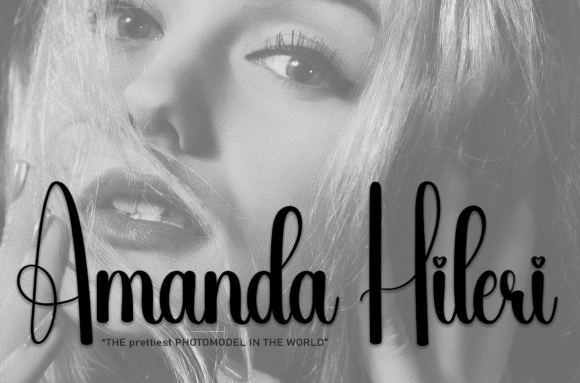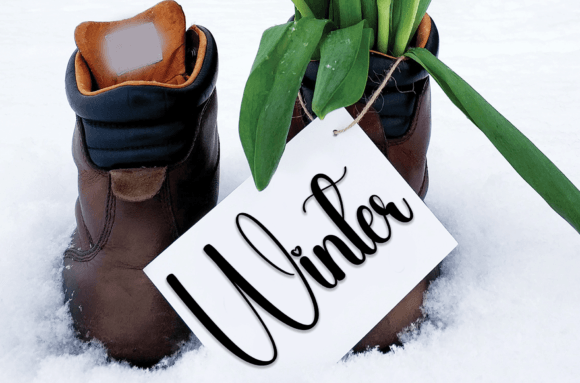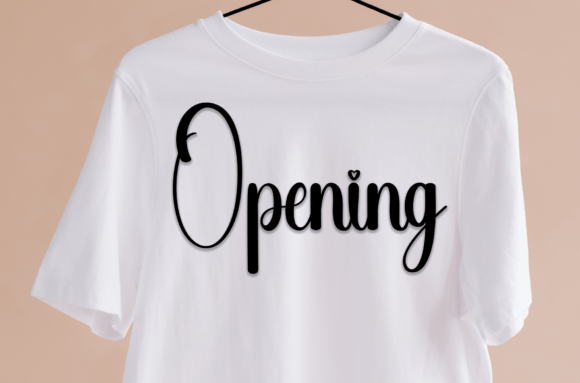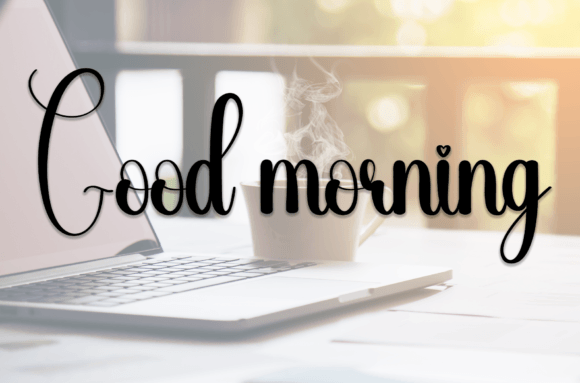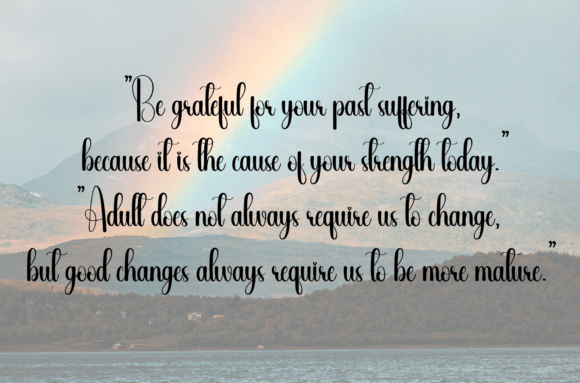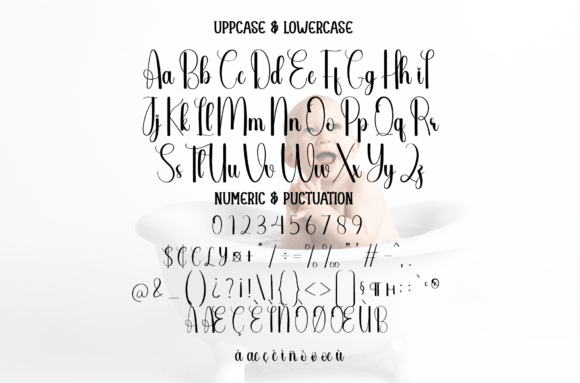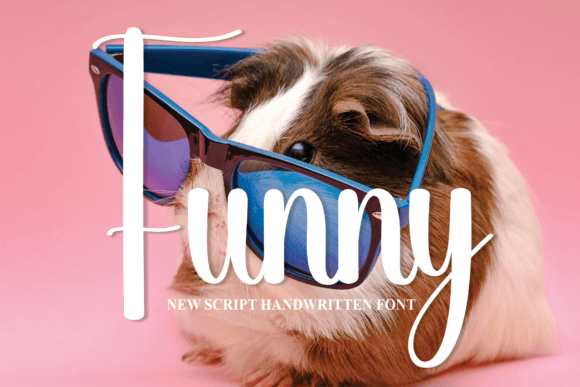
Adding a Dash of Whimsy: The Delightful World of Funny Fonts
In the realm of typography, fonts play a crucial role in conveying the tone and personality of a message. When it comes to injecting a dose of fun and playfulness into designs, a funny font can be the perfect solution. One such font that has captured the hearts of designers and crafters alike is the “Funny” font – a sweet and friendly handwritten display font that is ideal for adding a touch of whimsy to various projects.
What Makes Funny Font So Special?
Funny is a cute and fun font that boasts a charming, handwritten aesthetic. Its friendly and approachable vibe makes it perfect for a wide range of applications, from wedding invitations and cards to social media graphics and craft projects. The font’s playful nature allows designers to add a personal touch to their work, making it more engaging and relatable to their audience.
Characteristics of Funny Font
So, what sets Funny font apart from other fonts? Here are some of its key characteristics:
- Handwritten aesthetic: Funny font has a distinctly handwritten feel, which gives it a warm and personal touch.
- Cute and fun: The font’s playful nature makes it perfect for designs that require a dash of whimsy.
- Display font: Funny font is designed to make a statement, making it ideal for headings, titles, and other display text.
- Versatile: The font’s friendly and approachable vibe makes it suitable for a wide range of applications.
Use Cases for Funny Font
Funny font is incredibly versatile, and its uses are limited only by your imagination. Here are some popular use cases for this delightful font:
- Wedding invitations: Add a touch of whimsy to your wedding invitations and make them truly unforgettable.
- Cards and stationery: Funny font is perfect for creating playful and personalized cards and stationery.
- Social media graphics: Use Funny font to add a dash of personality to your social media graphics and make them more engaging.
- Craft projects: Funny font is a great addition to any craft project, from DIY signs to handmade gifts.
Tips for Using Funny Font Effectively
To get the most out of Funny font, here are some tips to keep in mind:
- Use it sparingly: While Funny font is playful and fun, it’s best to use it sparingly to avoid overwhelming your design.
- Pair it with complementary fonts: Combine Funny font with complementary fonts to create visual interest and hierarchy.
- Experiment with colors and textures: Add an extra layer of personality to your design by experimenting with different colors and textures.
In conclusion, Funny font is a delightful addition to any design project. Its playful and whimsical nature makes it perfect for adding a touch of personality to wedding invitations, cards, social media graphics, and craft projects. With its versatility, charm, and friendly aesthetic, Funny font is sure to become a favorite among designers and crafters alike. So why not give it a try and see how it can add a dash of whimsy to your next project?